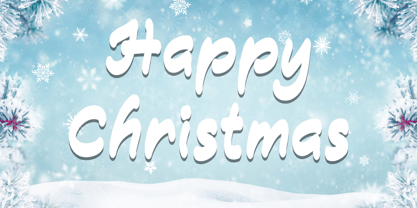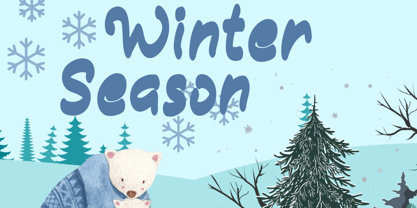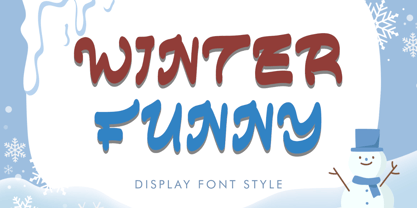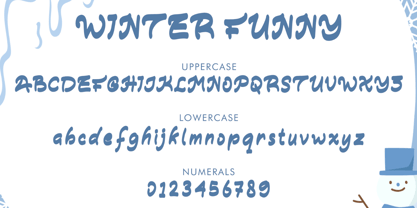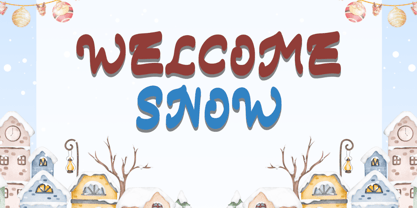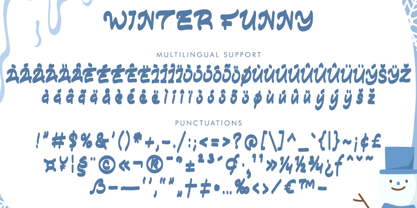
Winter Funny
by Yoga Letter
The Winter Funny Font Family was designed by Isroni Yoga Prasetya and published by Yoga Letter. Winter Funny contains 1 styles. More about this family
"Winter Funny" is a cute and unique winter display font. It features uppercase and lowercase letters, numerals, punctuations, and multilingual support. It's perfect for winter, Christmas, weddings, invitations, Halloween, print, banners, posters, logos, stickers, vacations, holidays, spring, summer, fall, autumn, t-shirts, Procreate, sublimation, and more.
Designers: Isroni Yoga Prasetya
Foundry: Yoga Letter